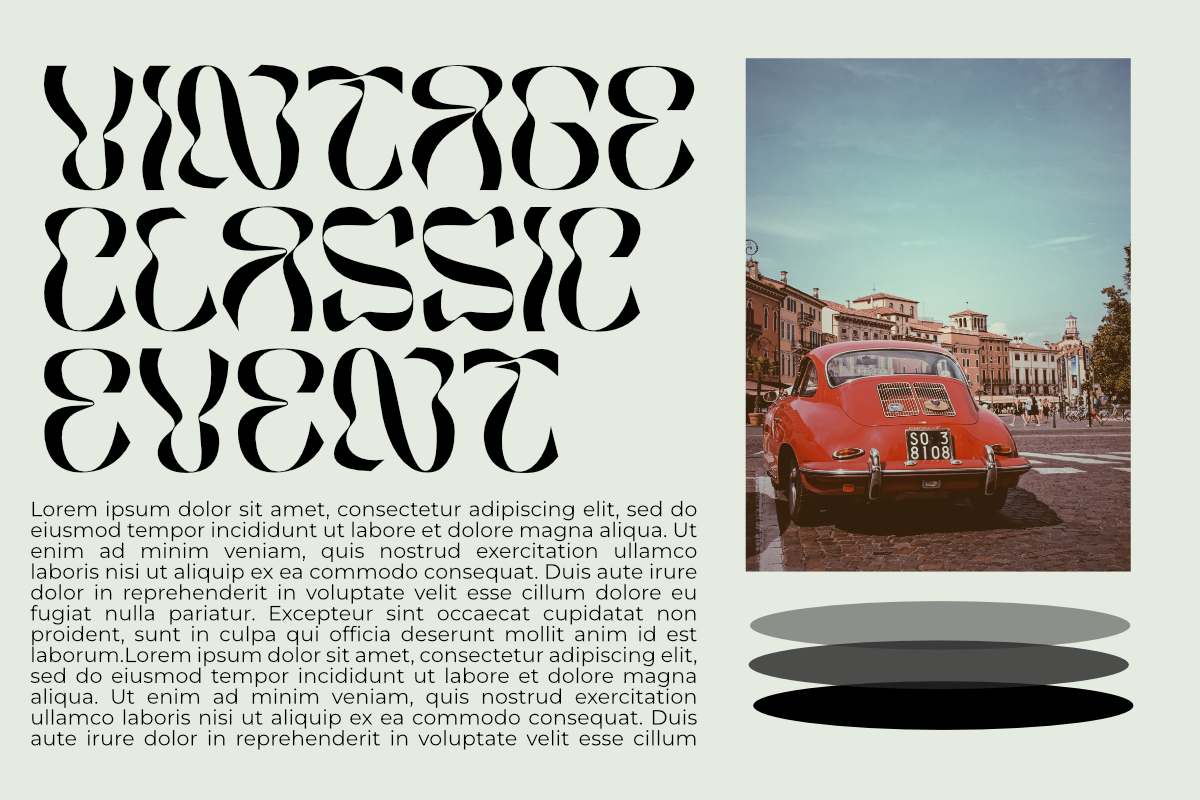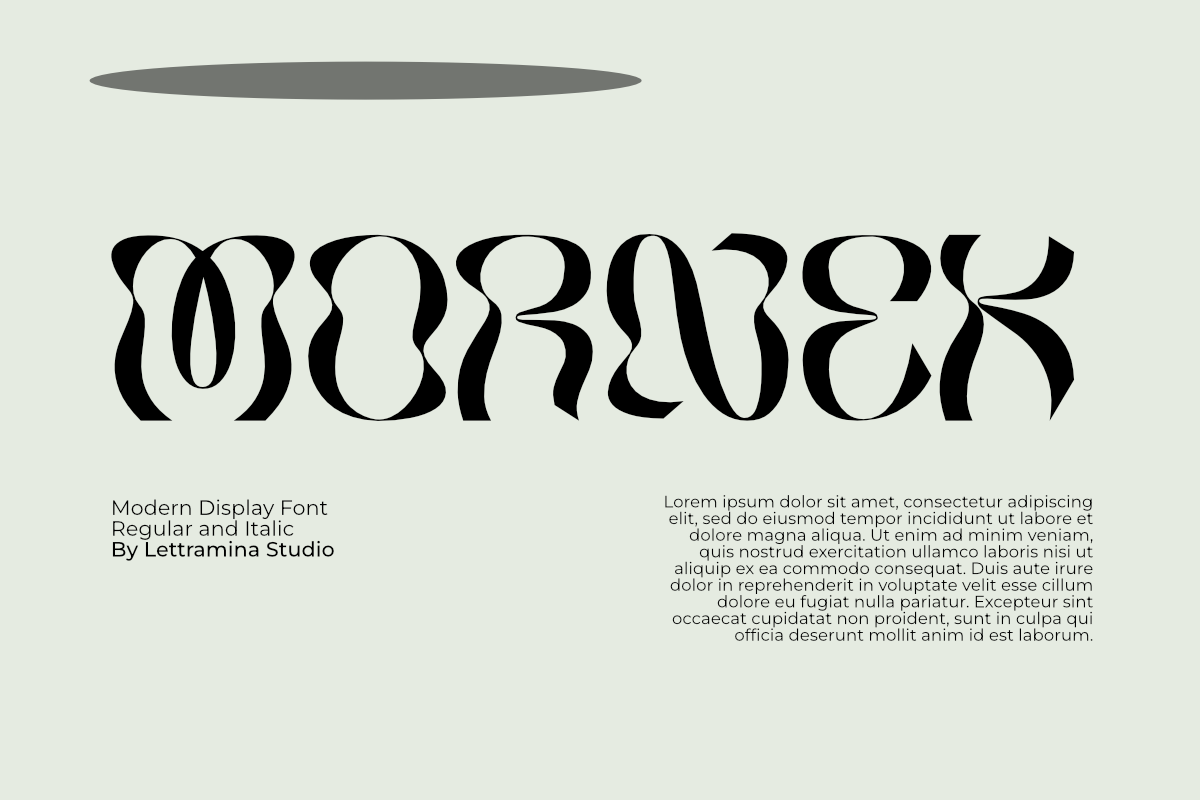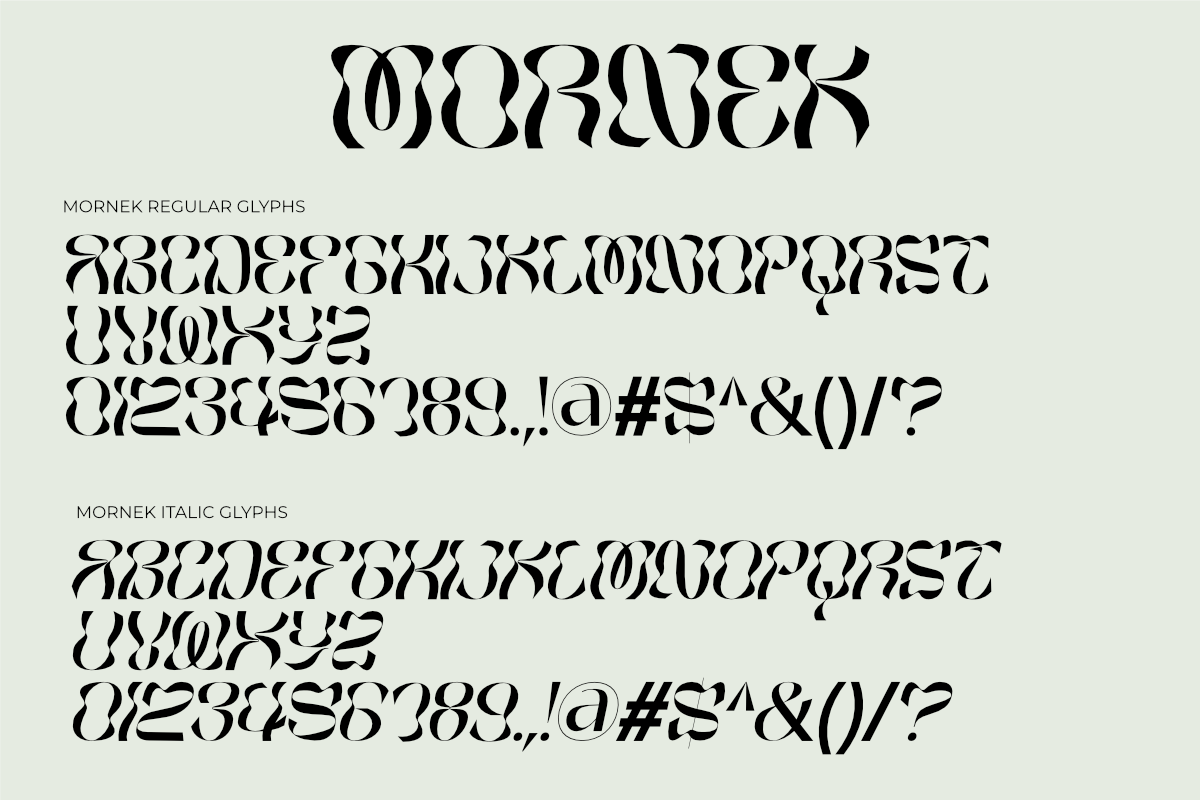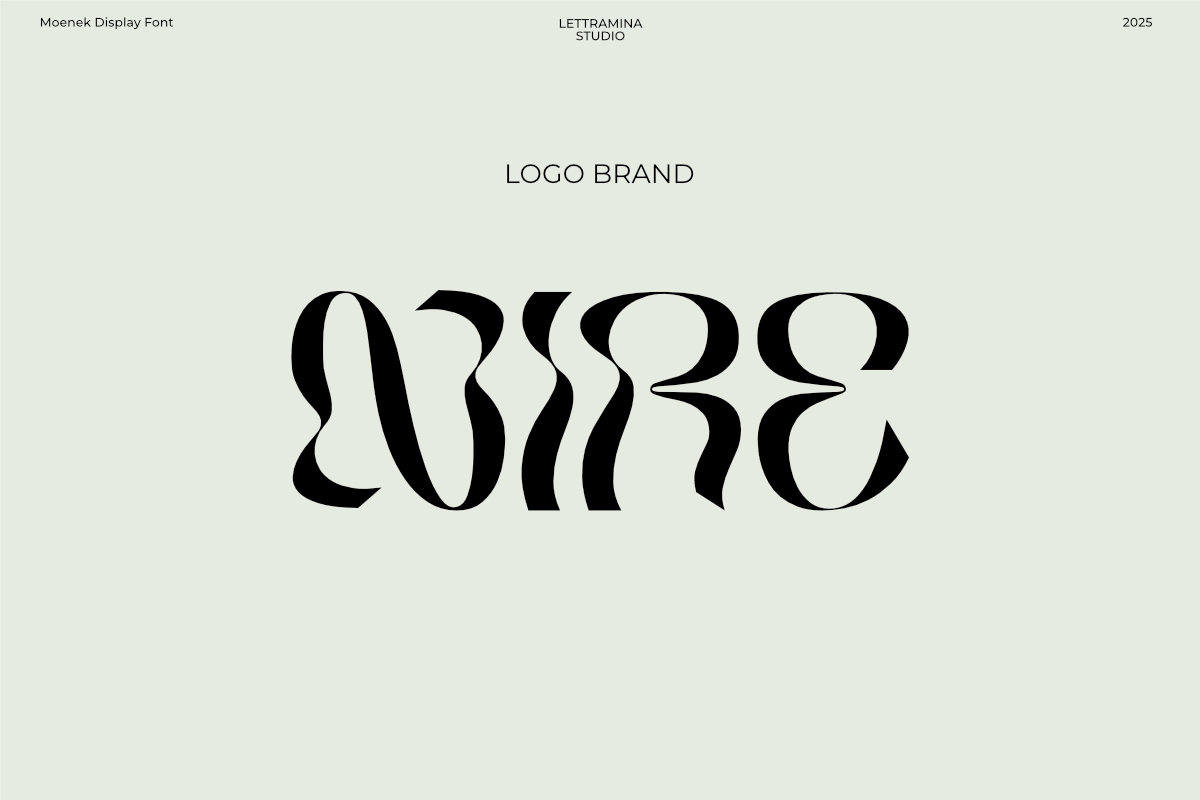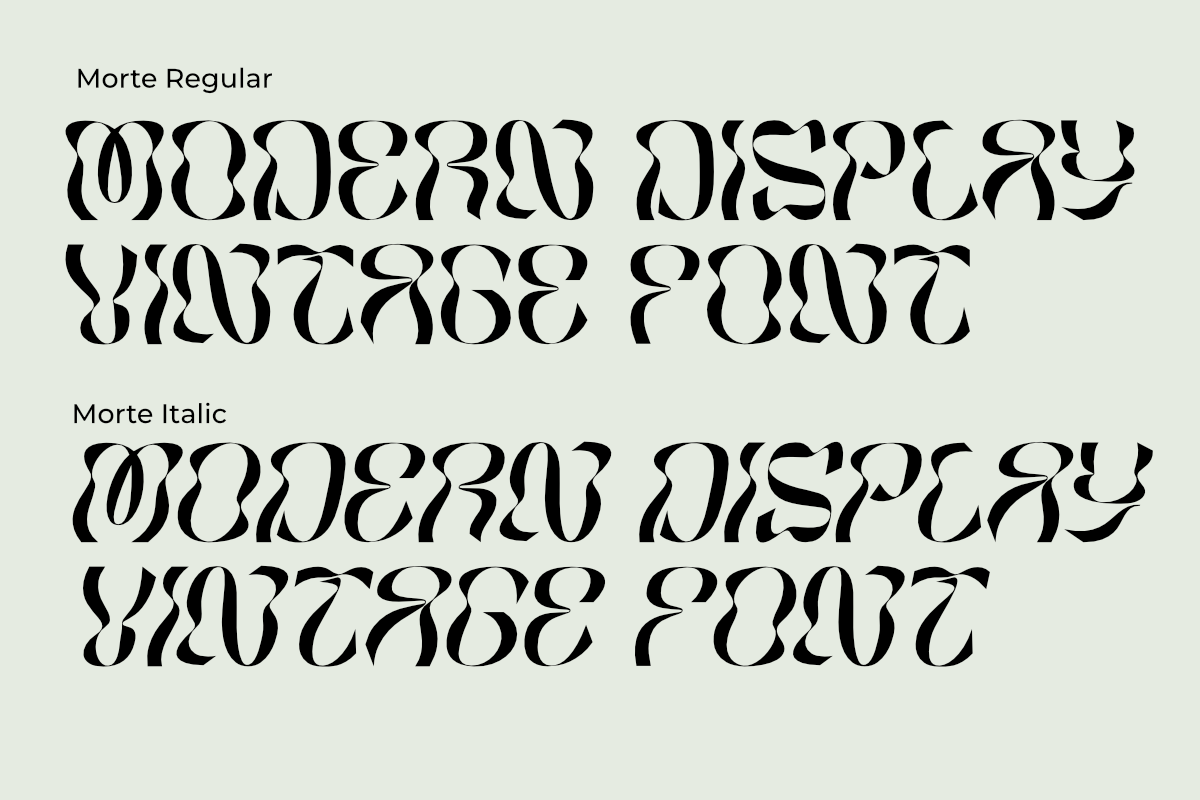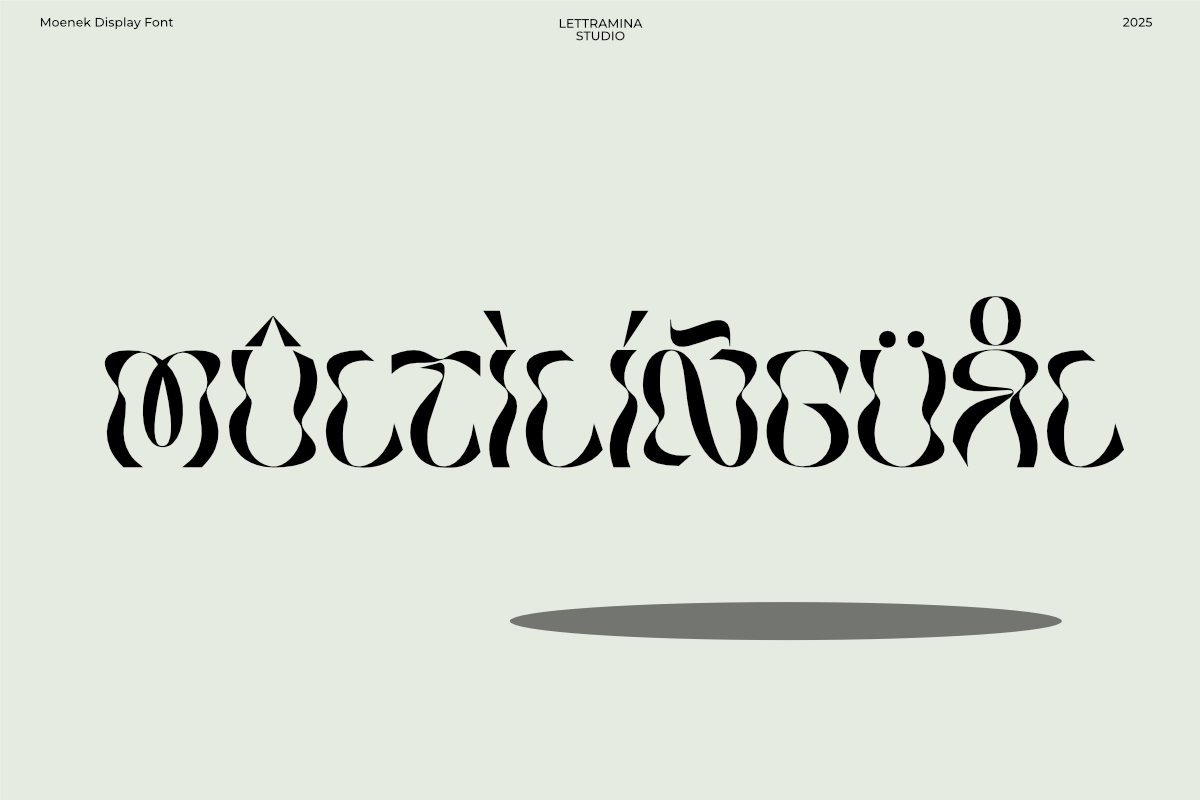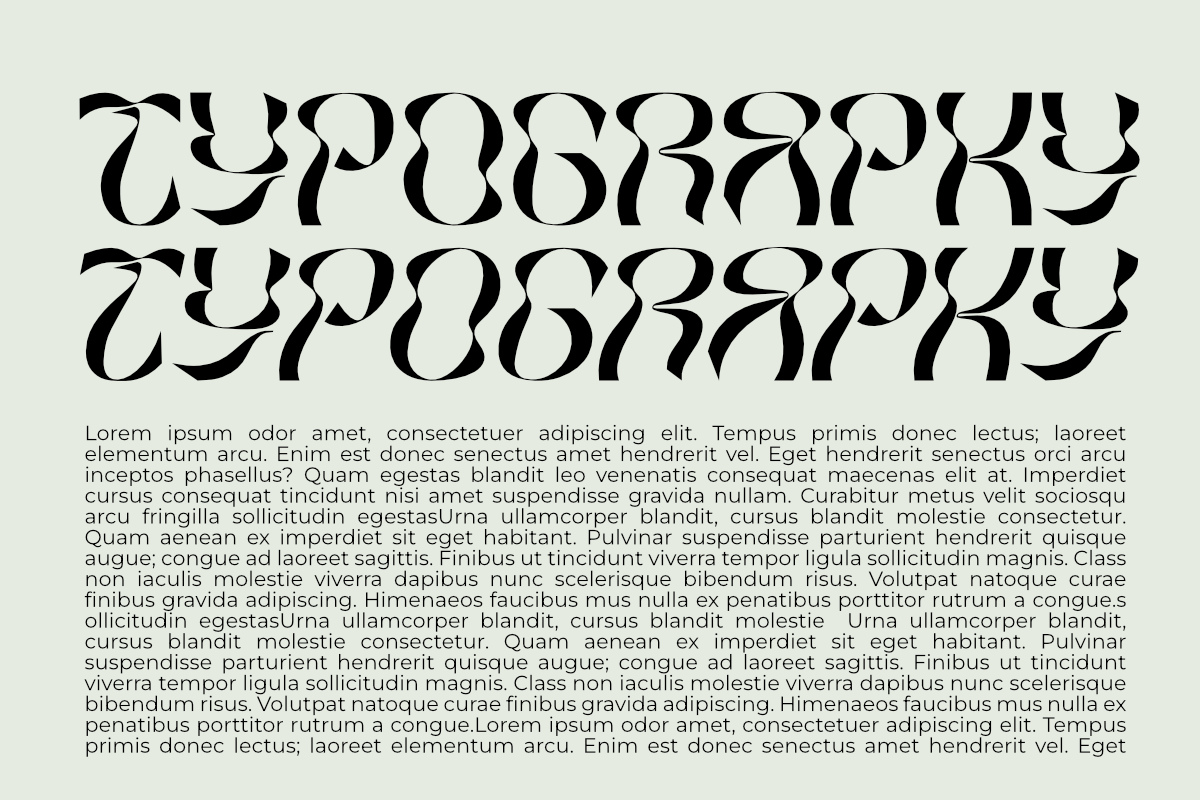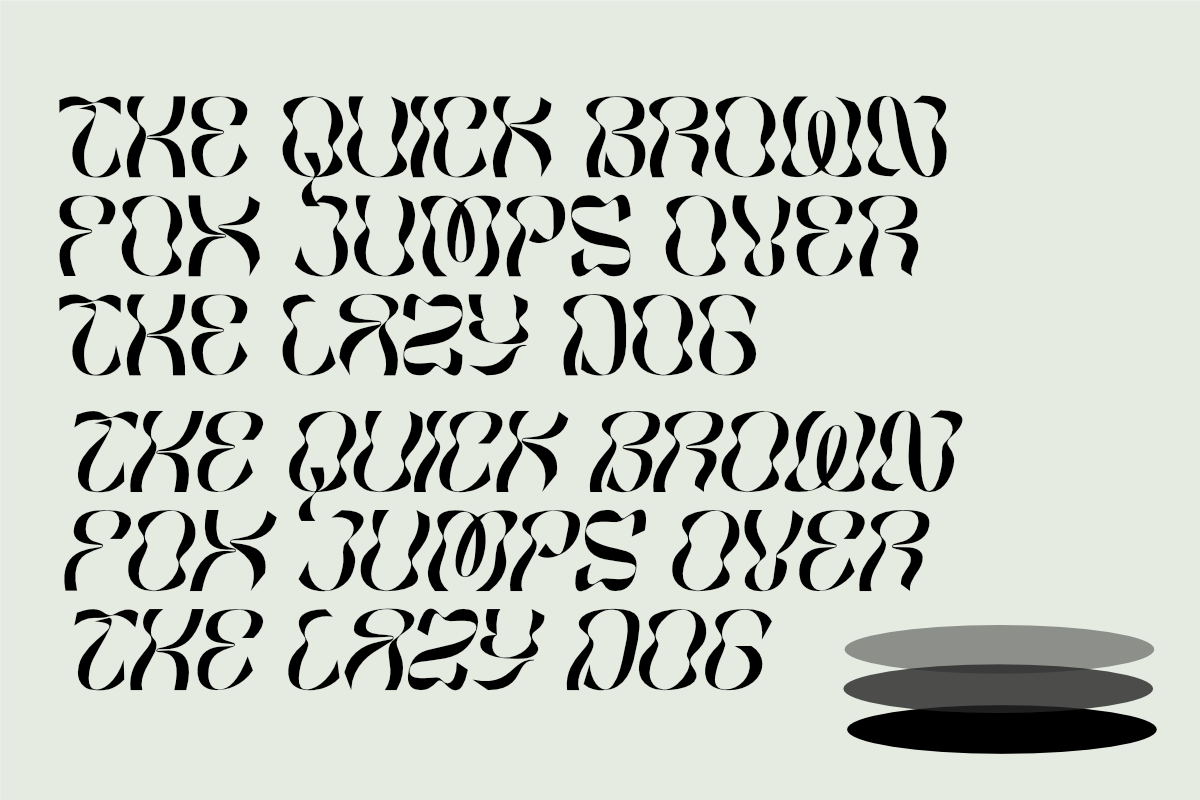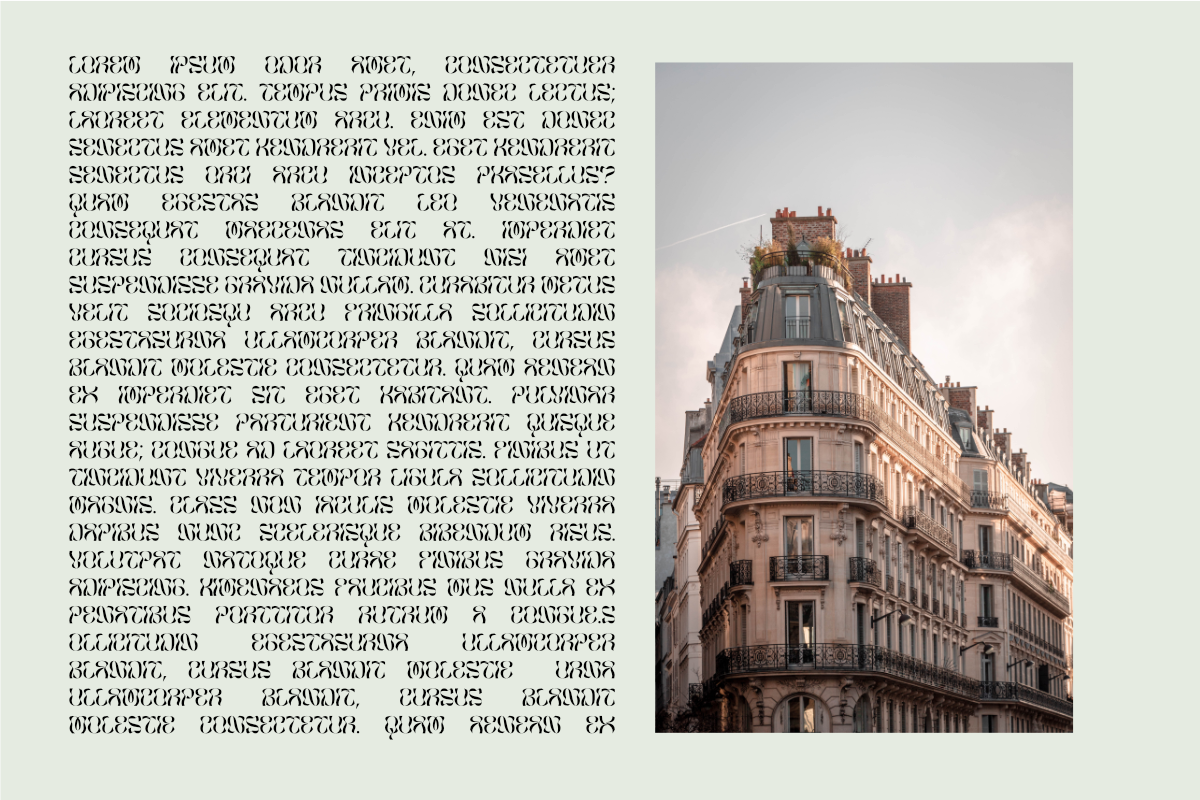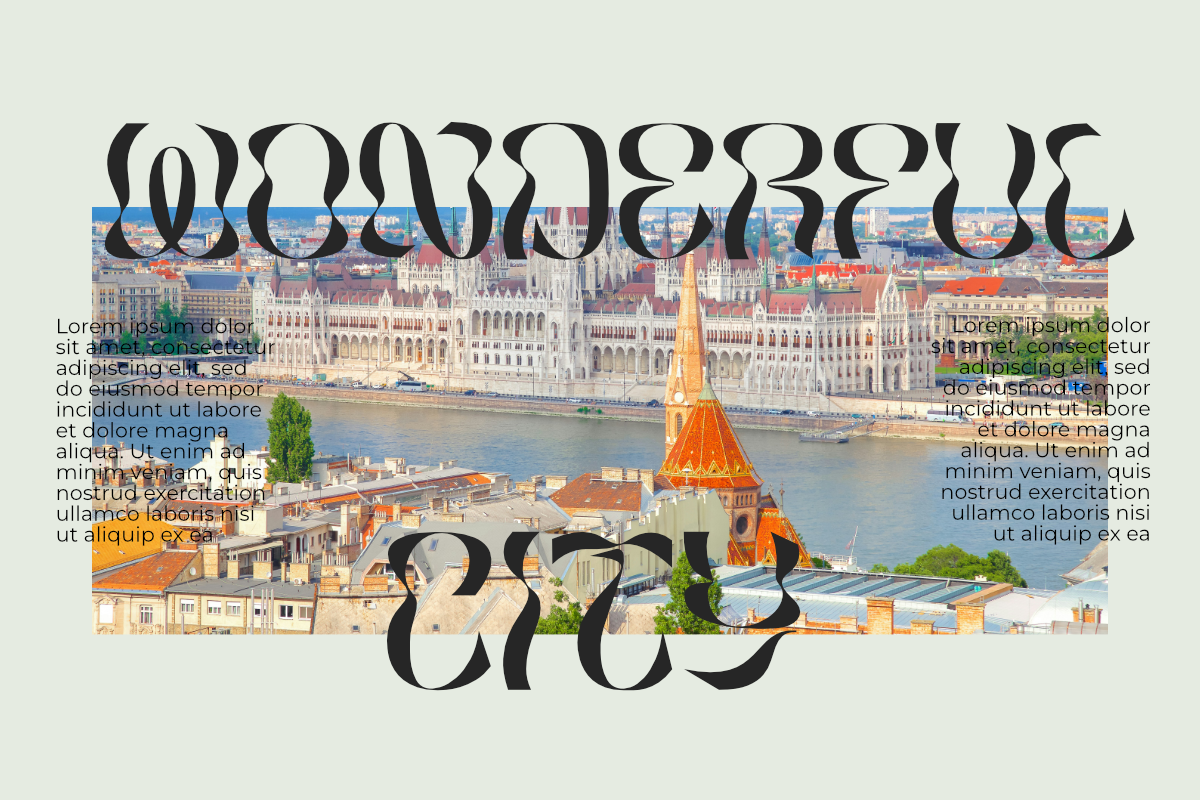
Mornek - Experimental Typeface
Mornek is a bold and experimental display typeface that fuses ornamental curves with sharp, modern forms. Its unique, abstract letter construction evokes a sense of mystery and artistic depth, making it a standout choice for posters, album covers, fashion branding, or editorial designs that aim to push visual boundaries.
Mornek comes in two styles: Regular and Italic. The Regular style presents a sculptural, structured elegance, while the Italic version adds a sense of motion and expressive flair—offering versatility for designers who want both edge and sophistication in their typography.
Whether used for bold headlines or artistic compositions, Mornek makes a statement that’s impossible to ignore.
Features: Uppercase & lowercase Multilingual support Alternates & ligatures Punctuation & symbols